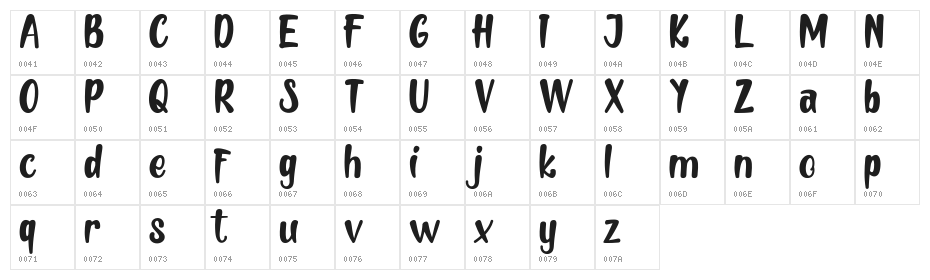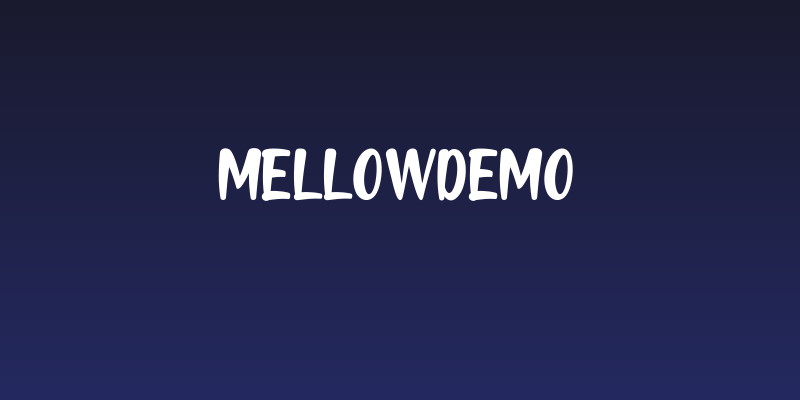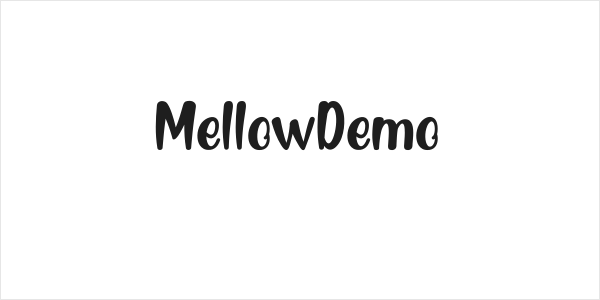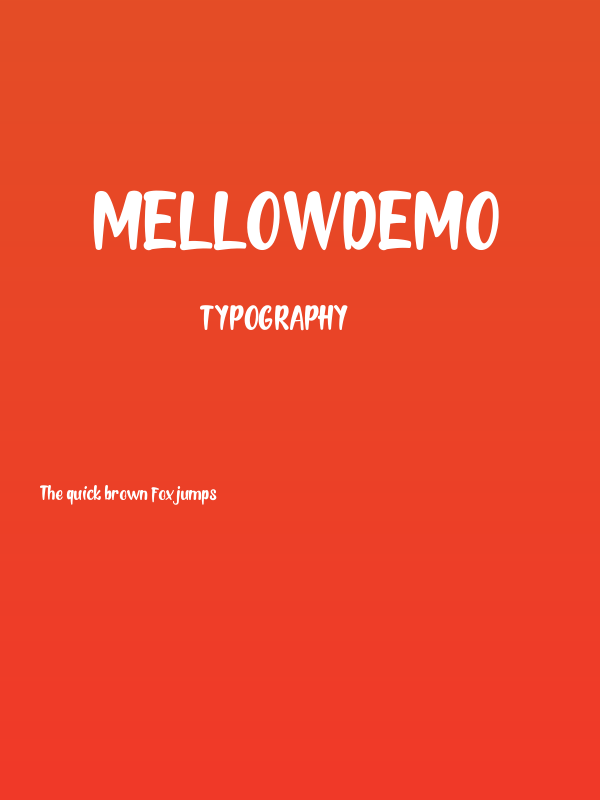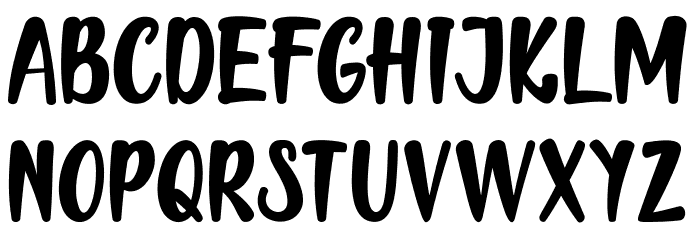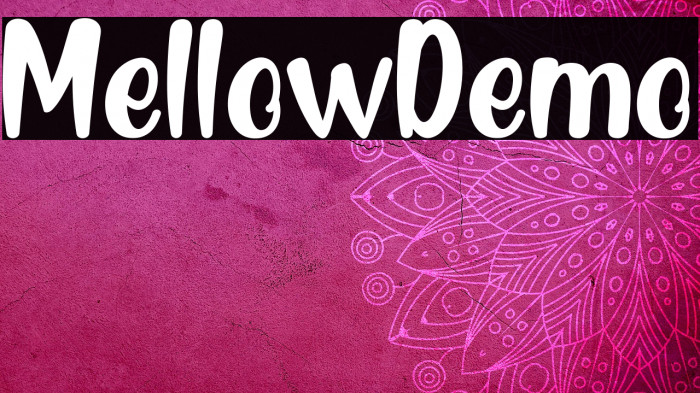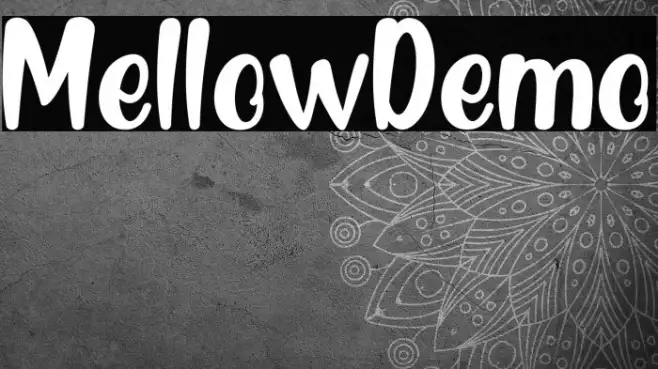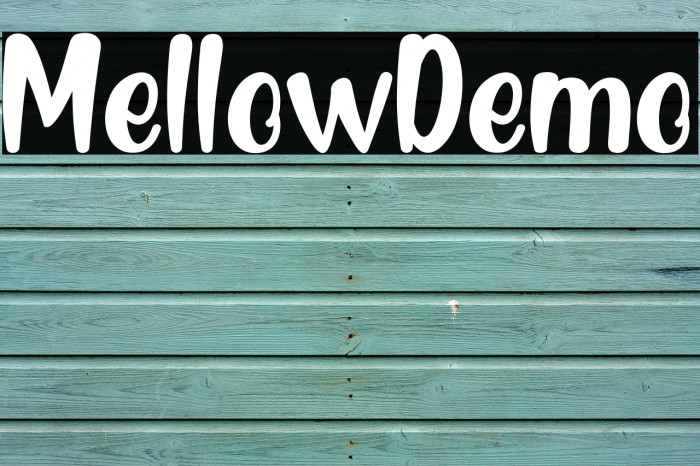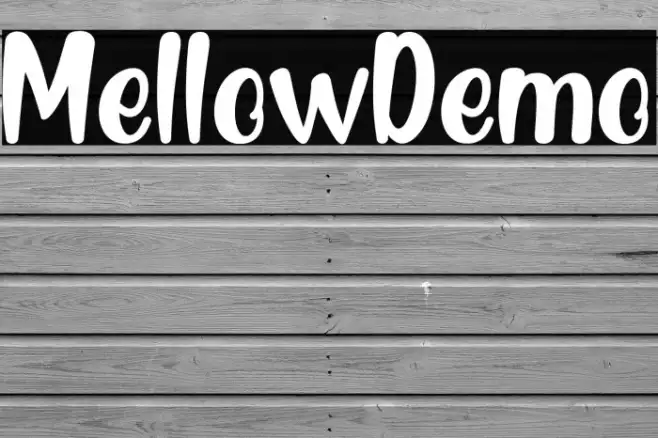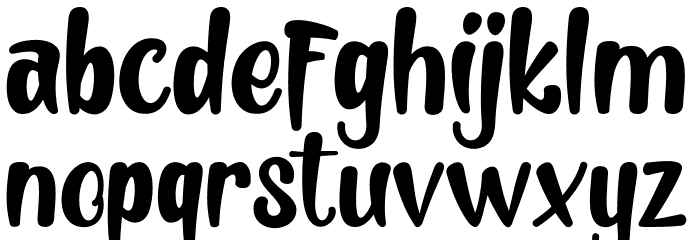
MellowDemo Font
MellowDemo Description
This font features a playful and bold handwritten style, characterized by its thick strokes and rounded edges. The letters are slightly slanted, giving a casual and friendly appearance. The uppercase and lowercase letters maintain a consistent style, with the uppercase being slightly larger and more pronounced. The numbers and special characters follow the same design principles, ensuring uniformity across all glyphs. This font is ideal for projects that require a personal touch, such as invitations, greeting cards, or playful branding. Its boldness ensures readability while maintaining a unique and artistic flair.
| Overall Style | Playful, Casual |
| Proposed Projects | Ideal for invitations, greeting cards, playful branding, and artistic projects. |